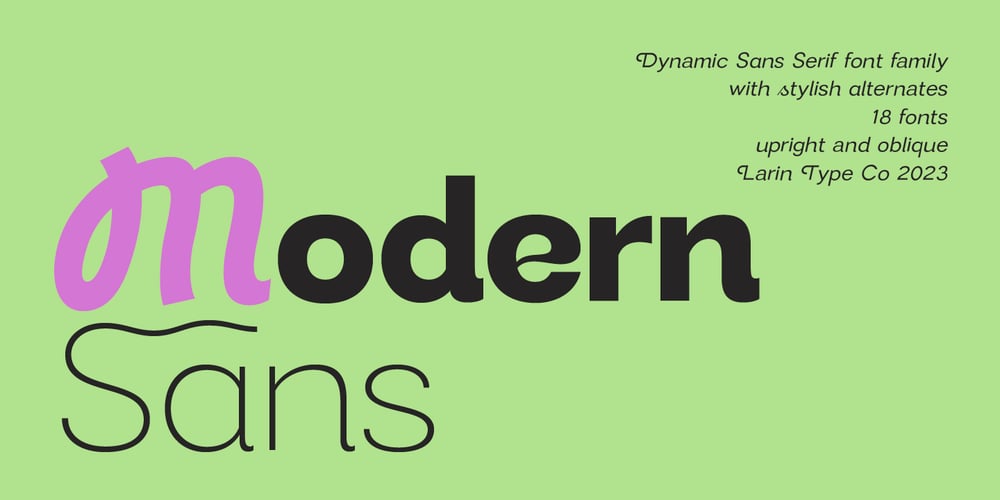
Modern Sans
Modern Sans font
Modern Sans Font Family was designed by Pavel Larin and published by Larin Type Co. Modern Sans contains 18 styles and family package options. Modern Sans this is a font family that includes 9 weights from thin to black and two styles basic and oblique. In this font you will find a classic and universal grotesque that will perfectly cope with a variety of tasks and will always look stylish and modern, as well as many alternates for Upper and Lowercase, with which you can play and find the most incredible and stunning option. This universal font covers a huge range of possibilities for the design and creation of your project.